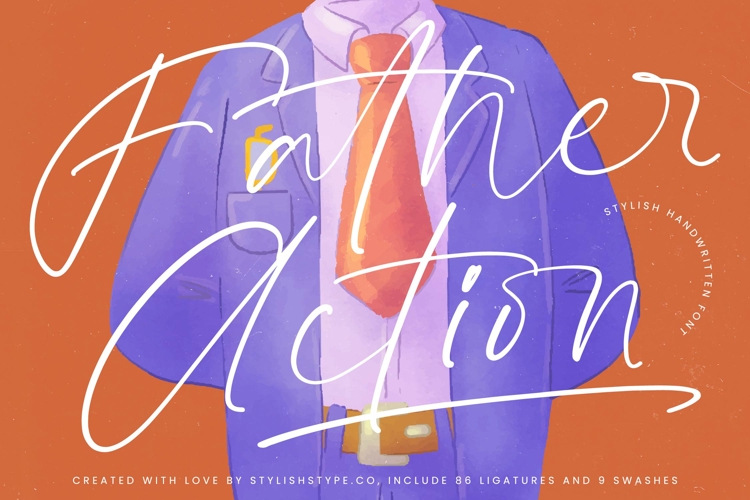
Father Action- Stylish Handwritten Font
Father Action is a stylish handwritten font that combines modern elegance with a natural handwritten touch. With fluid strokes, refined ligatures, and graceful swashes, this typeface offers a sophisticated yet approachable aesthetic, making it suitable for a wide variety of creative projects. Featuring 86 ligatures and 9 swashes, Father Action provides designers with flexibility to craft custom, expressive lettering compositions.
This font is excellent for branding. Perfect for logos, boutique shops, monogramslabels, and product packaging, Father Action communicates uniqueness and refinement. Its handwritten style ensures that branding projects authentic, stylish, and memorable, ideal for both lifestyle and premium markets.
In editorial and publishing, Father Action adds charm and character. Magazines, book covers, creative layouts, and invitations benefit from its smooth flow and elegant rhythm. It creates editorial designs that blend artistic with legibility, making it a versatile choice for modern publications.
For web typography, this handwritten font integrates seamlessly across blogs, websites, online portfolios, and social media content. Its casual yet refined style ensures that digital media projects feel authentic, creative, and professional, helping brands and creators connect more closely with their audience.
Father Action also works well in advertising and marketing. From posters, campaigns, flyers, and promotional materials, its handwritten strokes capture attention while maintaining elegance. It ensures that advertising projects remain eye-catching, stylish, and impactful.
The typeface is also suitable for wedding and event stationery. With its graceful swashes and organic rhythm, it enhances invitations, greeting cards, event signage, and stationery, giving them a romantic and artistic feel. It’s perfect for wedding branding and celebrations that require intimacy and elegance.